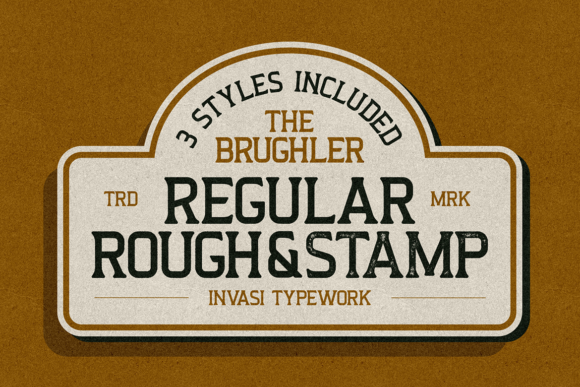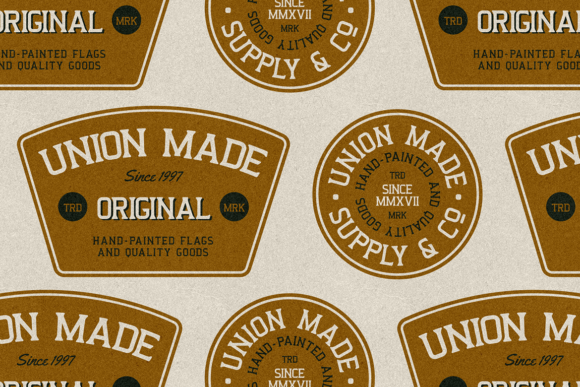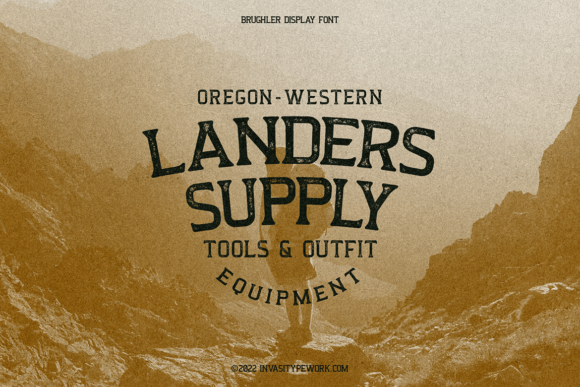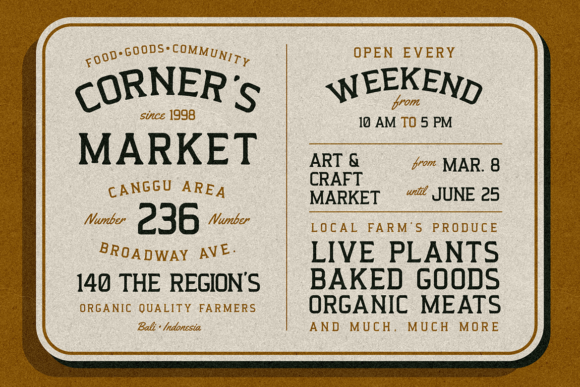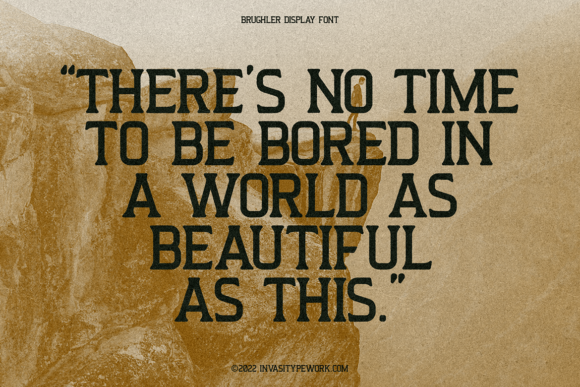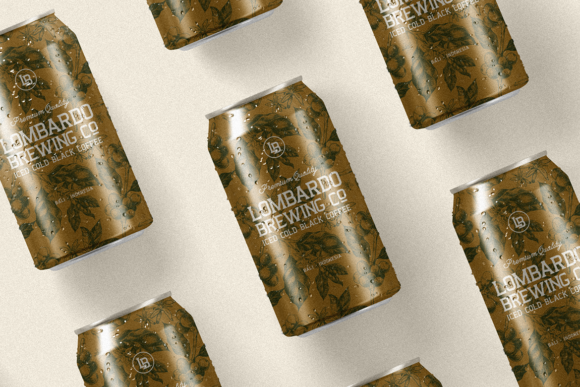
Brughler Font: The Ultimate Display Font for Designers and Crafters
Are you tired of using the same old fonts in your designs? Look no further than the Brughler Font, a bold and thick lettered display font that’s sure to take your creations to the next level. With its beautiful and well-balanced characters, Brughler is the perfect match for a wide range of designs, from modern and sleek to vintage and rustic.
What Makes Brughler Font So Special?
Brughler Font is a standout in the world of typography, and for good reason. Its bold and thick lettering makes it perfect for headlines, titles, and other display text, while its beautiful and well-balanced characters ensure that it looks great in any design. Whether you’re working on a logo, a poster, or a website, Brughler Font is sure to make a statement.
PUA Encoding: What It Means for Designers
One of the best things about Brughler Font is that it’s PUA (Private Use Area) encoded. This means that you can access all of the glyphs and swashes with ease, giving you even more creative freedom when it comes to your designs. With PUA encoding, you can easily access alternative characters, ligatures, and other special features that will take your designs to the next level.
Versatility: The Key to Brughler Font’s Success
So what makes Brughler Font so versatile? For starters, its bold and thick lettering makes it perfect for a wide range of designs, from bold and modern to elegant and sophisticated. Additionally, its well-balanced characters ensure that it looks great in any context, whether you’re using it for a headline, a title, or a block of body text.
Brughler Font is perfect for designers and crafters who want to add a touch of elegance and sophistication to their creations. Whether you’re working on a logo, a poster, a website, or any other type of design, Brughler Font is sure to be a great choice. Its bold and thick lettering makes it perfect for headlines and titles, while its beautiful and well-balanced characters ensure that it looks great in any context.
How to Use Brughler Font in Your Designs
Tips and Tricks for Getting the Most Out of Brughler Font
Here are a few tips and tricks for getting the most out of Brughler Font:
- Use Brughler Font for headlines and titles to add a touch of elegance and sophistication to your designs.
- Experiment with different colors and textures to give your designs a unique and eye-catching look.
- Take advantage of PUA encoding to access alternative characters, ligatures, and other special features.
- Use Brughler Font in combination with other fonts to create a unique and visually appealing design.
In conclusion, Brughler Font is a bold and thick lettered display font that’s perfect for designers and crafters who want to add a touch of elegance and sophistication to their creations. With its beautiful and well-balanced characters, PUA encoding, and versatility, Brughler Font is sure to be a great choice for any design project. So why wait? Download Brughler Font today and start creating stunning designs that will leave a lasting impression.
Key Features of Brughler Font
- Bold and thick lettered display font
- Beautiful and well-balanced characters
- Versatile and perfect for a wide range of designs
- Perfect for designers and crafters